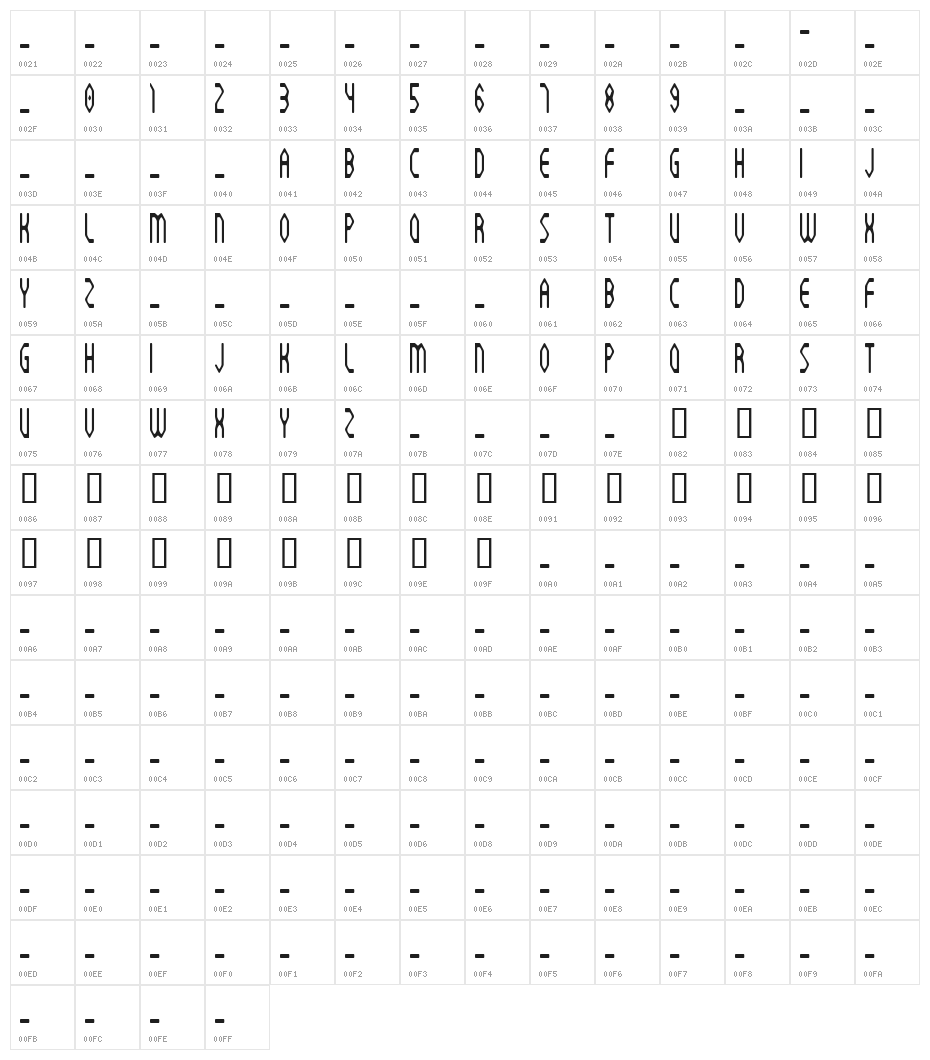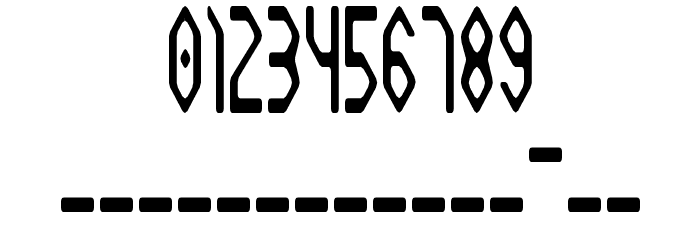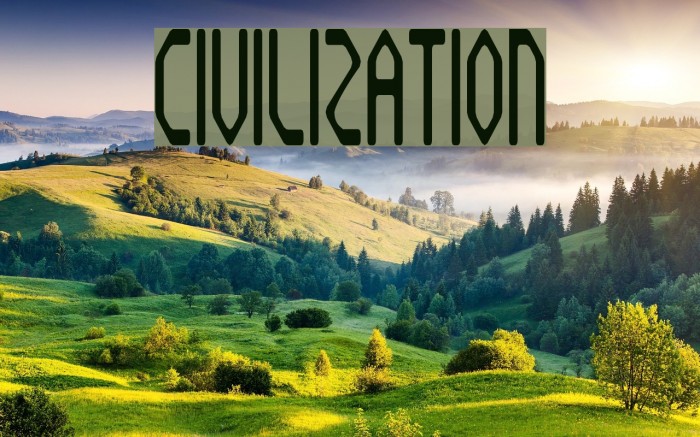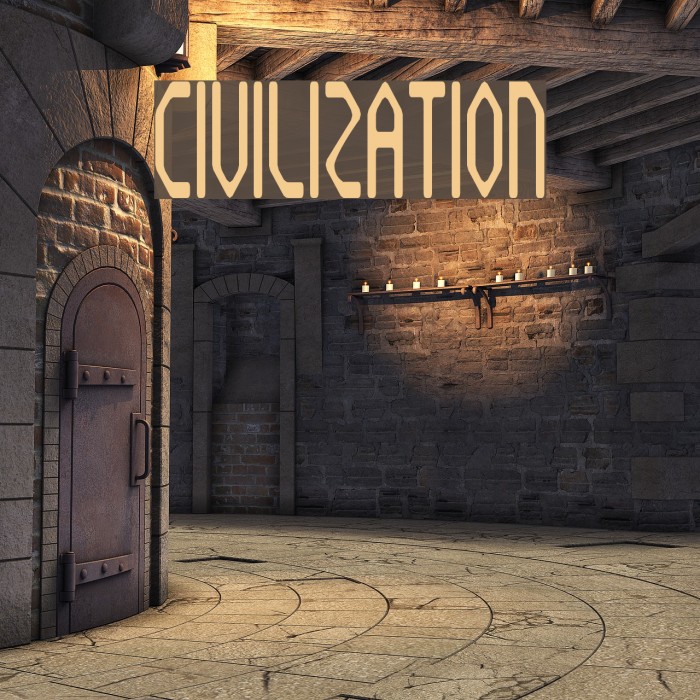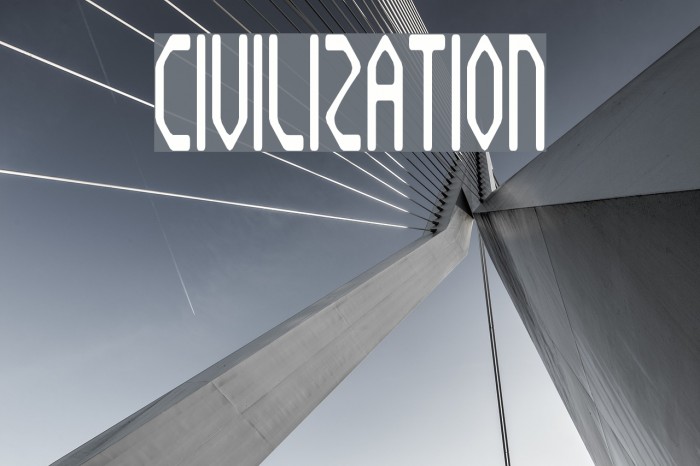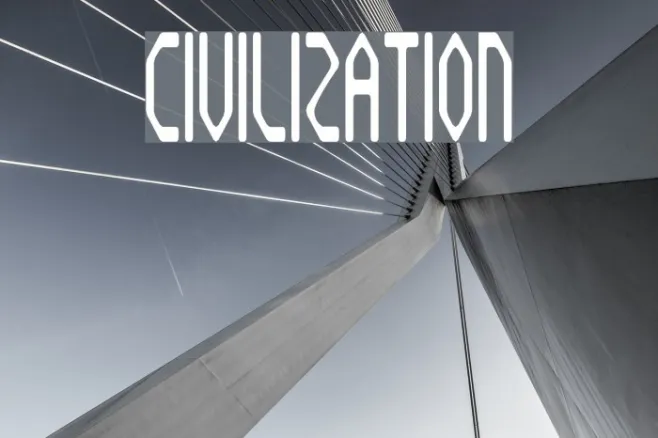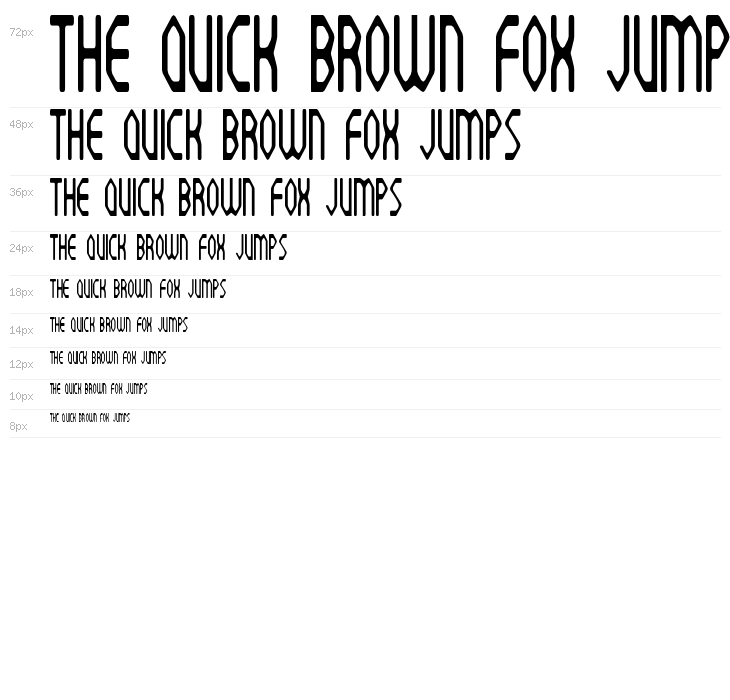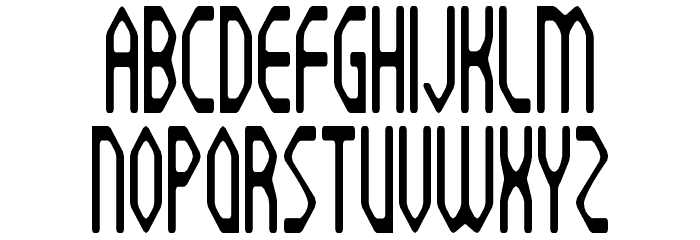
Civilization Font
Civilization Description
This font features a futuristic and geometric design with a unique blend of sharp angles and rounded edges. The uppercase letters are tall and narrow, giving a sleek and modern appearance. The numbers and special characters maintain the same stylistic approach, ensuring consistency across all glyphs. The overall design is clean and minimalistic, making it suitable for projects that require a contemporary and tech-inspired aesthetic.